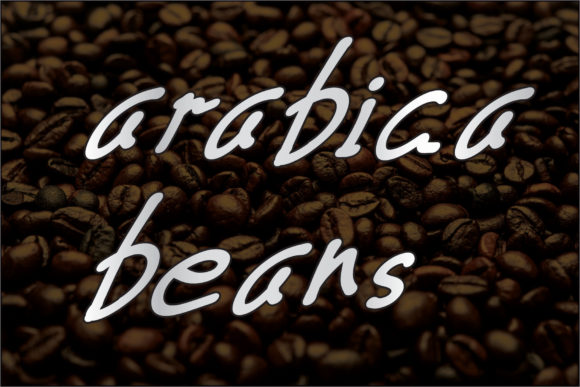
The Perfect Cup: Discovering the Charm of Arabica Beans Font
A Honest Review: The Good and the Not-So-Good
What I Love About Arabica Beans Font
- ✨ Unique and Natural Style: Arabica Beans Font boasts a distinctive, handmade look that adds a touch of warmth to any design.
- ✅ Versatility: Its friendly and approachable vibe makes it suitable for a wide range of projects, from branding and packaging to invitations and social media graphics.
- 💫 Ease of Use: The font is easy to read and works well in various sizes, making it perfect for both headlines and body text.
While Arabica Beans Font is an excellent choice for many projects, there are a few things to keep in mind:
- ⚠️ Limited Formality: Due to its friendly and casual nature, this font might not be the best fit for very formal or corporate designs.
- 🤔 Glyphs and Special Characters: Some users might find the selection of glyphs and special characters a bit limited, but this can also be seen as a stylistic choice that adds to the font’s charm.
- Take advantage of glyphs and stylistic alternates to customize your text and make it more engaging.
The Story Behind Arabica Beans Font
While the origins of Arabica Beans Font are shrouded in mystery, it’s easy to imagine that it was created by a designer who loves coffee and appreciates the beauty of handwritten letters. Perhaps the designer, inspired by the rich flavors and aromas of Arabica coffee beans, set out to create a font that captures the warmth and friendliness of a perfectly brewed cup.
Q: What makes Arabica Beans Font unique?
A: Arabica Beans Font stands out due to its natural, handwritten style and friendly vibe, making it perfect for designs that require a personal touch.
Q: Does Arabica Beans Font support OpenType features?
A: Yes, Arabica Beans Font supports OpenType features, including ligatures and stylistic alternates, which can enhance your designs.
Q: Is Arabica Beans Font suitable for body text?
A: While Arabica Beans Font is beautiful for headlines and titles, its readability for long body text may vary depending on the size and design. It’s best used in moderation for maximum impact.